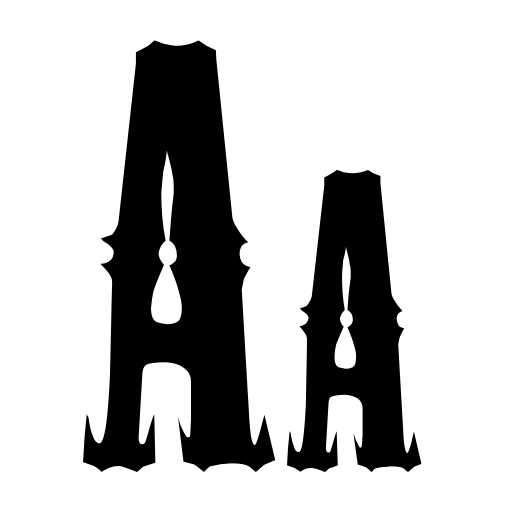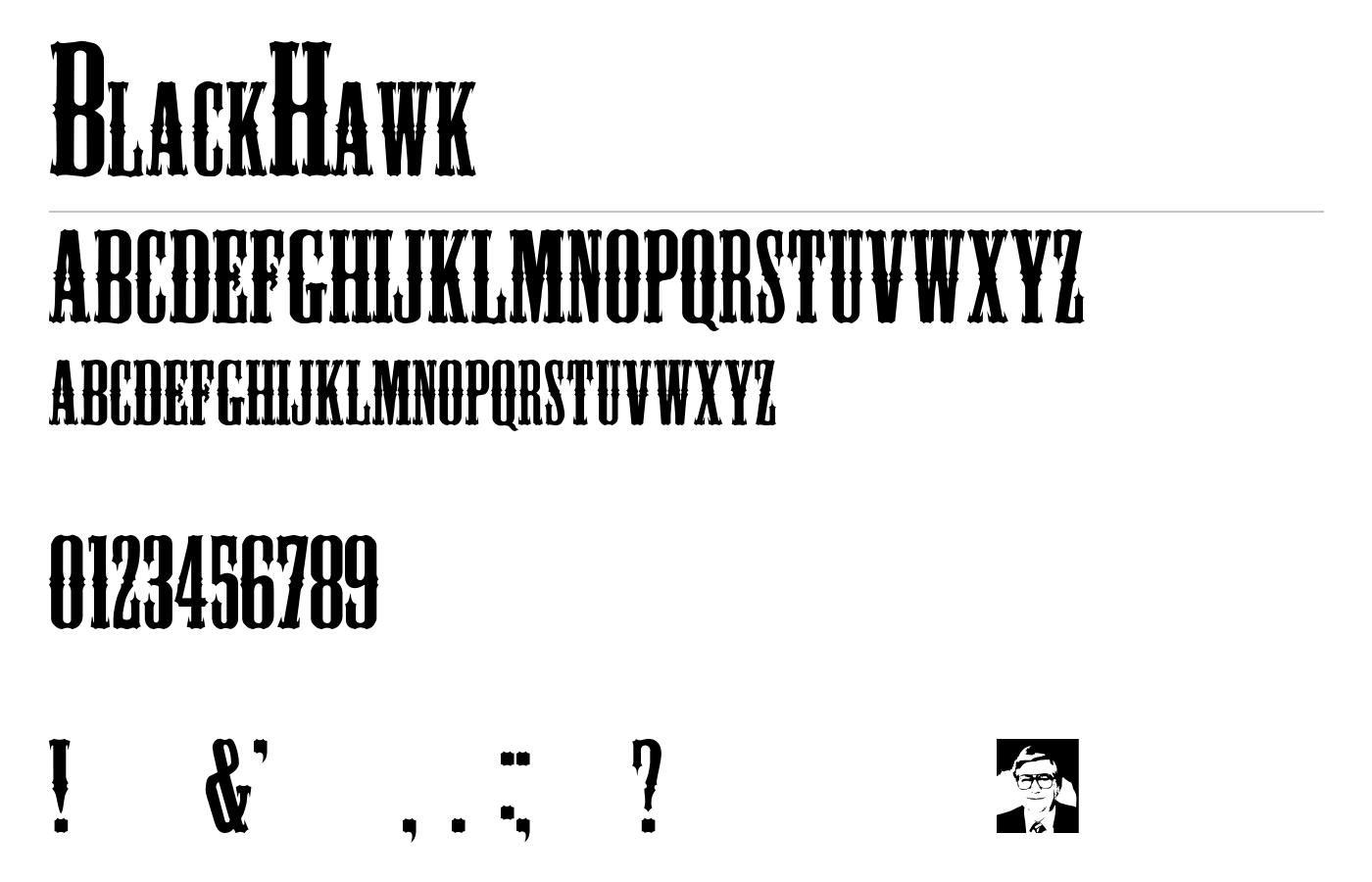
BlackHawk is a bold, condensed slab serif font with a strong Western or vintage vibe, highlighted by its thick, blocky serifs and sharp, rugged edges. Its high contrast between thick and thin strokes and narrow letterforms make it perfect for headlines, logos, and designs needing a tough, classic Americana or old-timey feel, adding personality and impact to projects. This font works well where a dramatic, sturdy presence is desired, especially in branding and posters that want to evoke strength and tradition.
BlackHawk Font